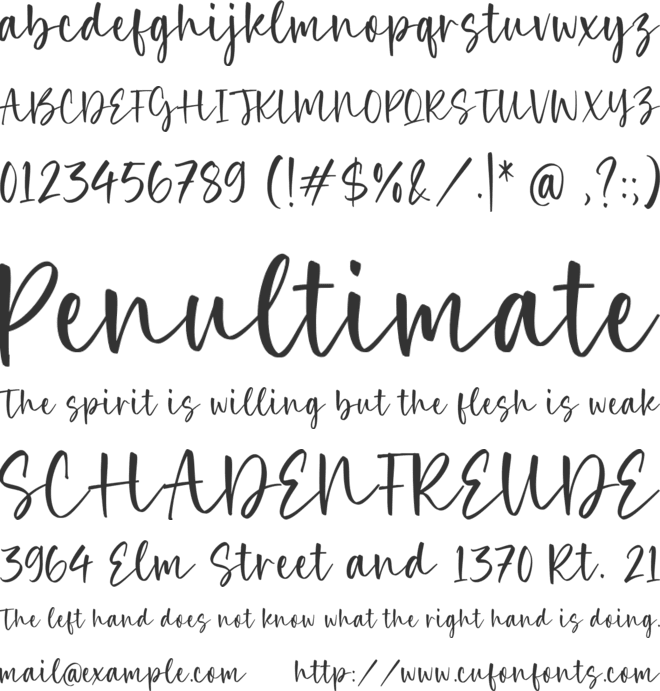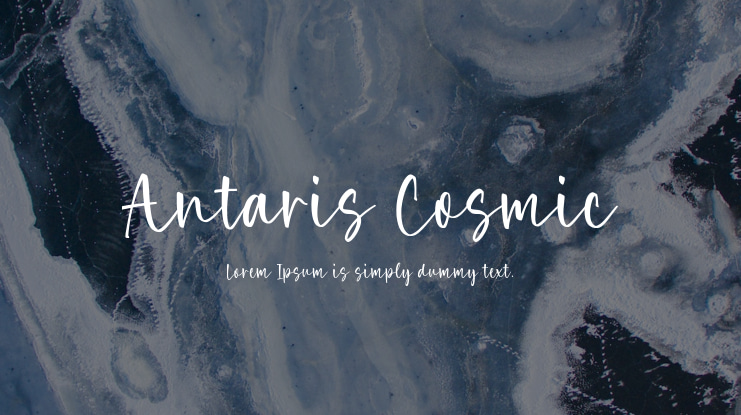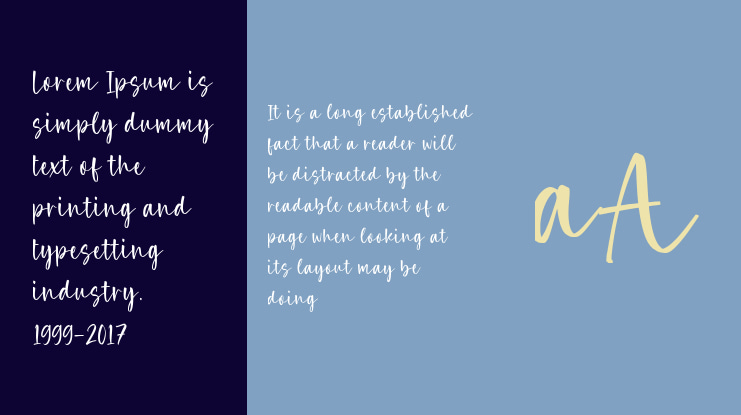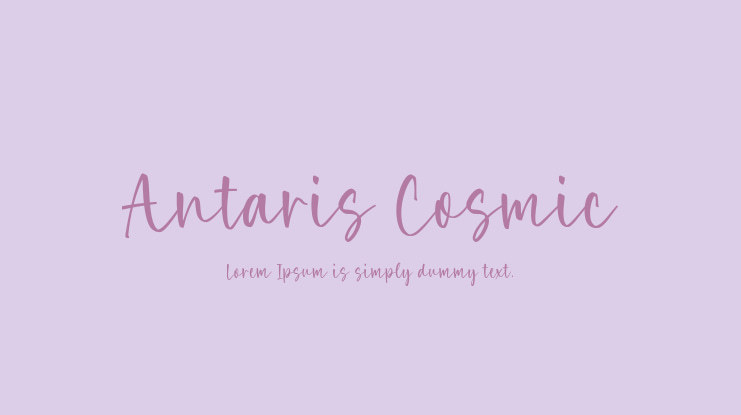
Antaris Cosmic Font
The Antaris Cosmic Handwritten Font offers a modern and fresh script style that will bring a warm and inviting feel to your business. This font is perfect for various purposes such as product packaging, branding projects, magazines, social media, weddings, or simply to express words on backgrounds. It features a full set of standard alphabet and punctuation, as well as multilingual support.